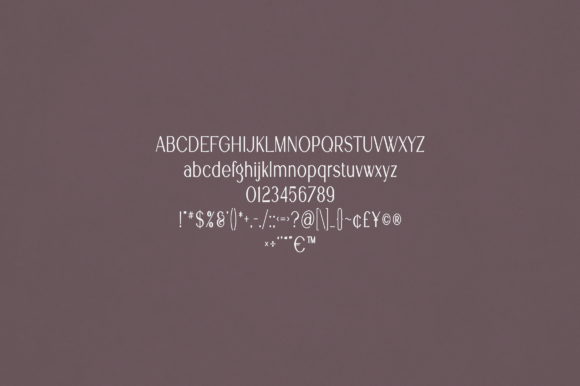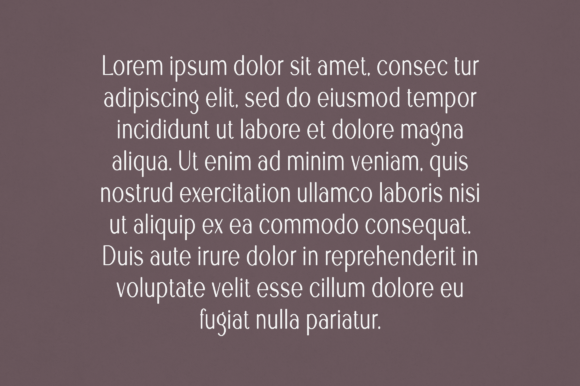
Introducing Bay Font: Elevate Your Typography with Elegance and Versatility
In the world of design, typography plays a crucial role in conveying messages, expressing creativity, and capturing the essence of a brand. Among the myriad of fonts available, Bay Font stands out as a beacon of elegance and versatility. This sans serif font is meticulously crafted to infuse uniqueness into your typography, making it an ideal choice for designers and crafters looking to leave a lasting impression.
The Essence of Bay Font
Bay Font is not just another addition to the vast collection of typefaces; it’s an exquisite blend of modernity and sophistication. Its sans serif design lends a clean and contemporary look, making it incredibly versatile for various design applications. Whether you’re working on a logo, branding project, headline, or even a plain text overlay on an image, Bay Font promises to add that extra layer of elegance and professionalism.
One of the standout features of Bay Font is its adaptability. It’s perfect for a multitude of design projects, including:
- Branding Projects: Establish your brand’s identity with a font that exudes confidence and sophistication.
- Home-ware Designs: Add a touch of elegance to your home-ware designs, making them stand out in a crowded market.
- Product Packaging: Elevate your product packaging with a stylish and contemporary font that captures the essence of your product.
- Magazine Headers: Create eye-catching magazine headers that draw readers in with Bay Font’s unique charm.
- Text Overlays: Use Bay Font as a stylish text overlay on any background image, adding depth and interest to your visual content.
Why Choose Bay Font?
With so many fonts at your disposal, what sets Bay Font apart? Here are a few reasons why Bay Font should be your go-to choice for your next design project:
- Elegance: Bay Font brings an unparalleled level of elegance to your typography, ensuring your designs look refined and sophisticated.
- Versatility: Its sans serif design and wide range of applications make it an incredibly versatile font for any design project.
- Uniqueness: With Bay Font, you can ensure your designs stand out from the crowd, thanks to its unique and stylish appearance.
- Easy to Read: Despite its elegant and stylish design, Bay Font remains highly legible, making it perfect for both headings and body text.
Tips for Using Bay Font Effectively
To maximize the impact of Bay Font in your designs, consider the following tips:
- Experiment with Sizes: Bay Font looks great in various sizes, from large headings to smaller body text. Experiment with different sizes to find the perfect balance for your design.
- Play with Colors: Don’t be afraid to experiment with different colors. Bay Font’s elegant design works well with a wide range of colors and can add a pop of personality to your designs.
- Combine with Other Fonts: For added visual interest, consider combining Bay Font with other fonts. Its versatility makes it a great pairing with a variety of typefaces.
Bay Font is more than just a font; it’s a design statement. Its elegant and versatile sans serif design makes it the perfect choice for designers and crafters looking to elevate their typography. Whether you’re working on a branding project, home-ware design, product packaging, or simply adding a stylish text overlay to an image, Bay Font is sure to make your designs truly unique. With its wide range of applications and easy readability, Bay Font is an essential tool in any designer’s arsenal. So why settle for ordinary typography when you can make a statement with Bay Font?